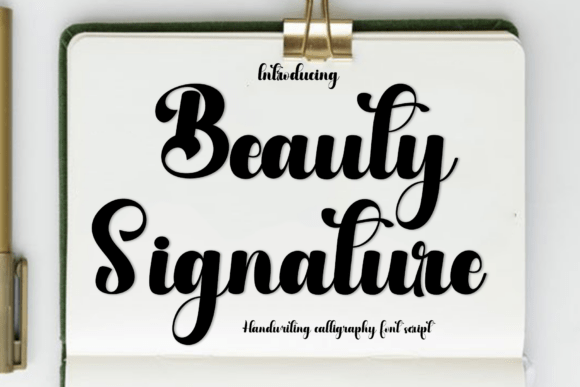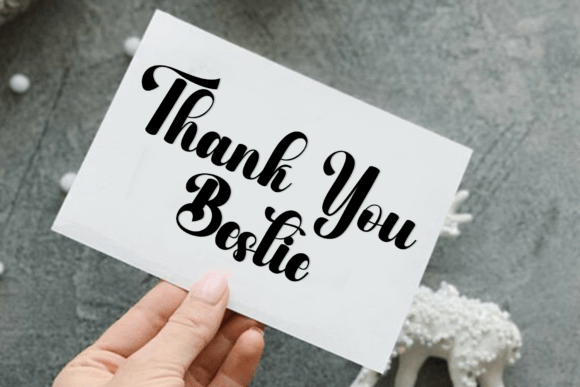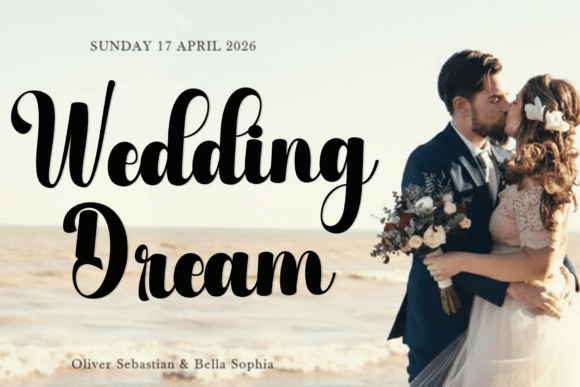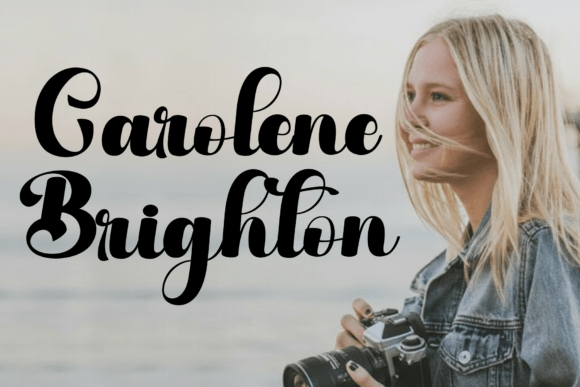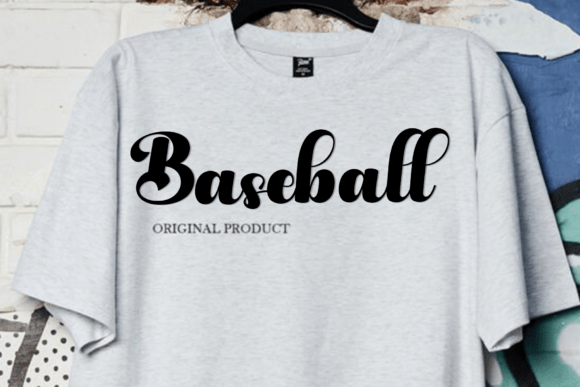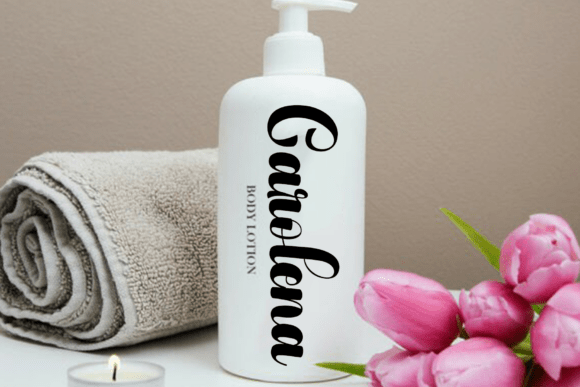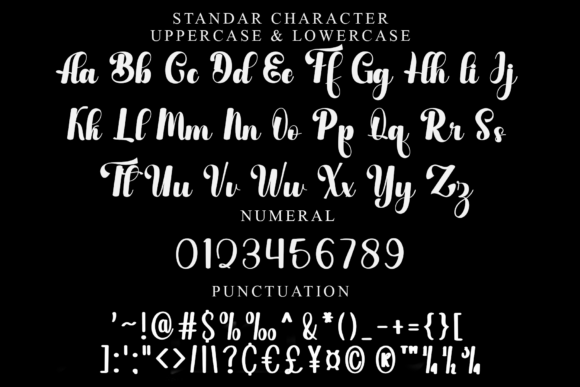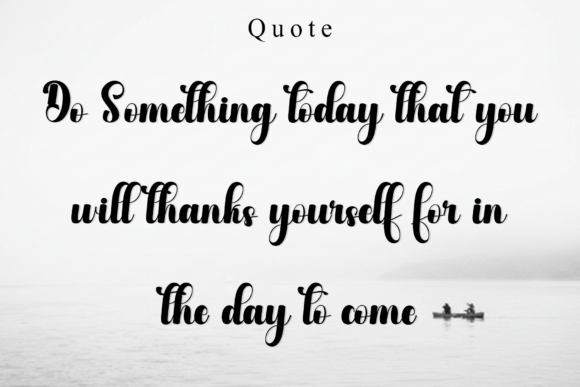
Beauty Signature Script Fonts
Elevate your brand’s visual narrative with Beauty Signature, an opulent script that marries couture sensibility with artisanal soul. This isn’t your average cursive; it’s a high-density, commandingly thick typeface that celebrates the art of the hand-inked flourish. Each letter is built with a substantial, plush architecture and sinuous swashes that mimic the natural cadence of a calligrapher’s wrist. Whether you are crafting a prestigious identity for a flagship salon, designing high-end packaging for a boutique makeup line, or setting the tone for an exclusive gala, Beauty Signature delivers a sophisticated, bold impact that feels both timeless and aggressively modern.